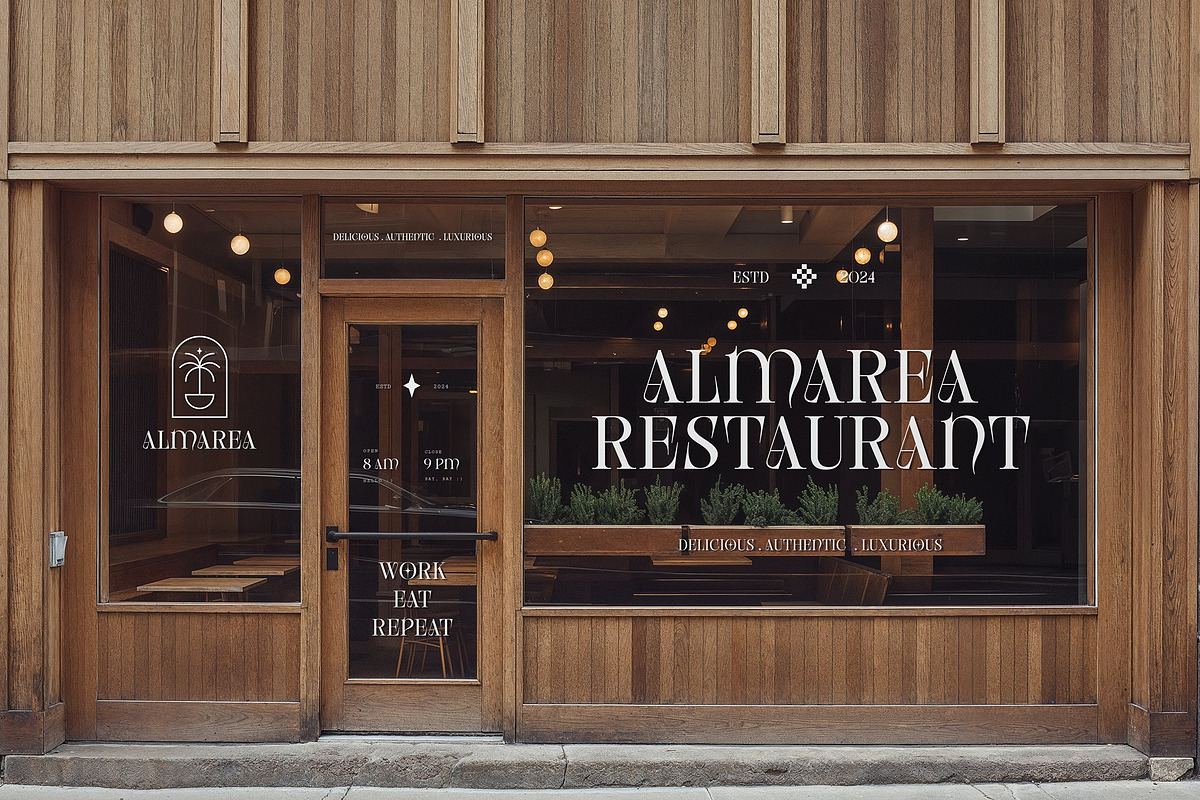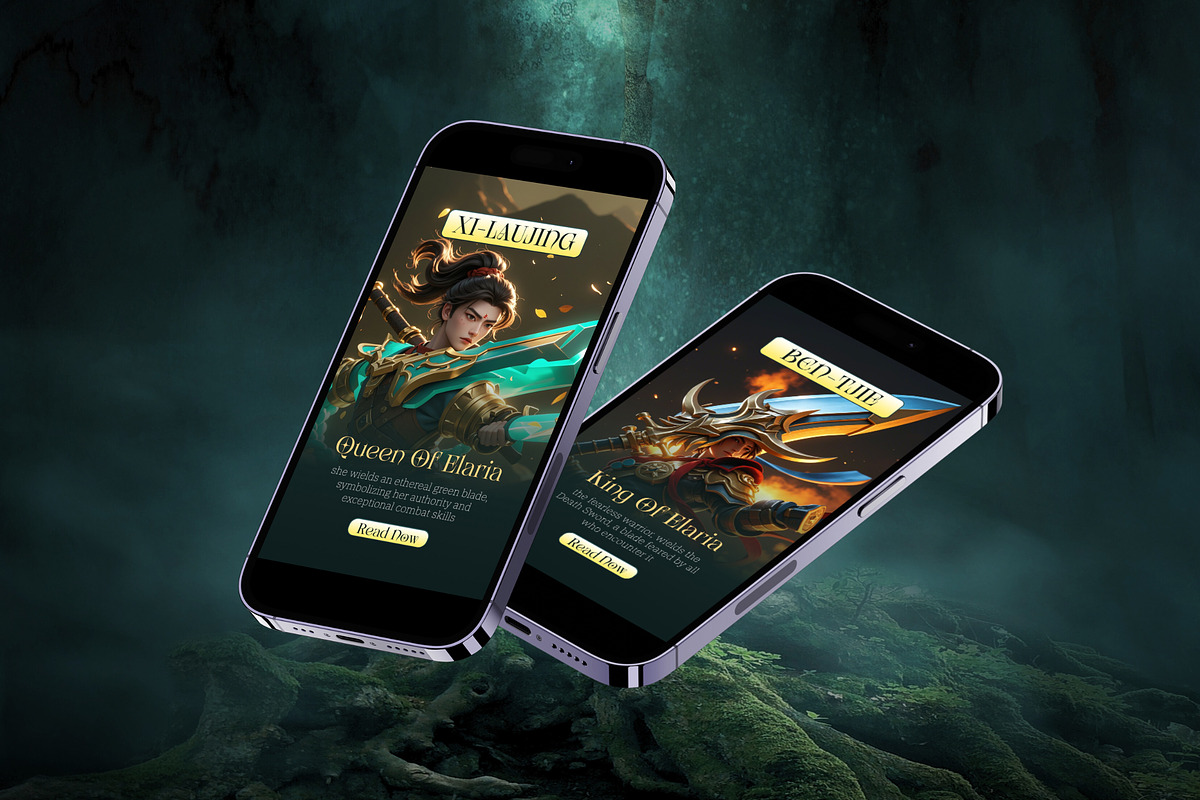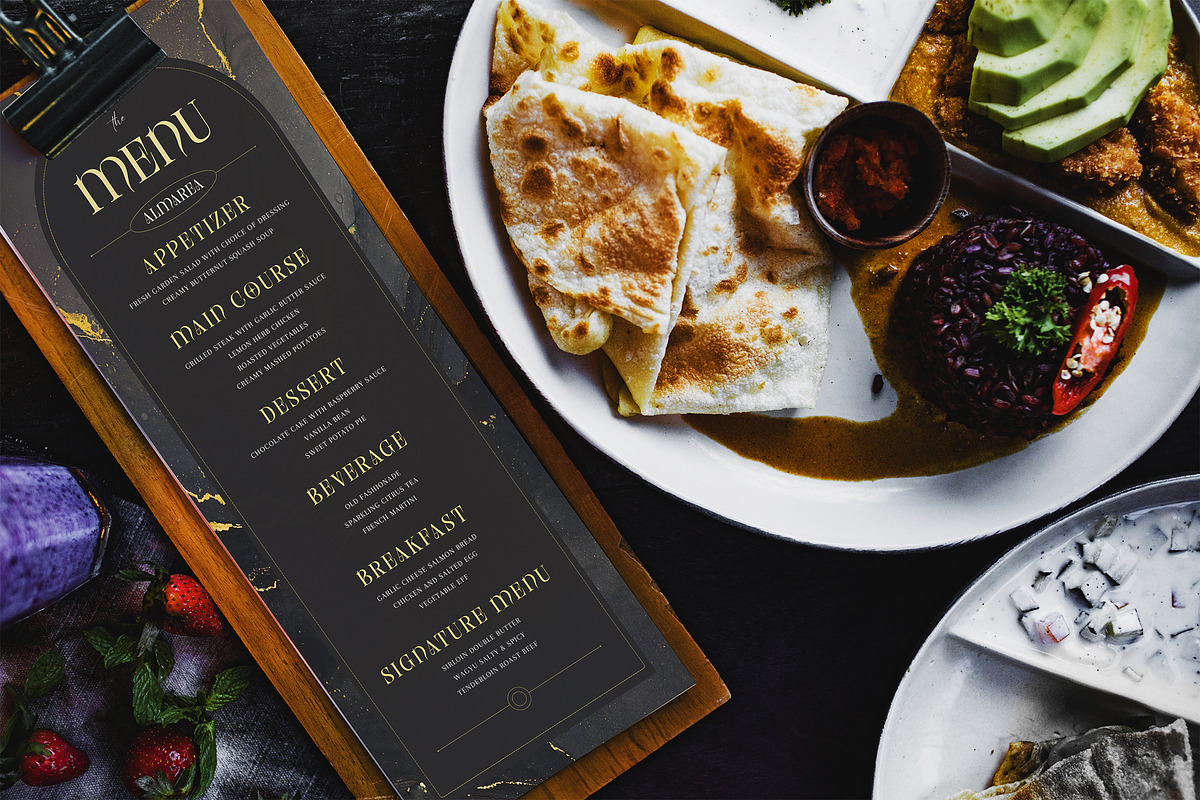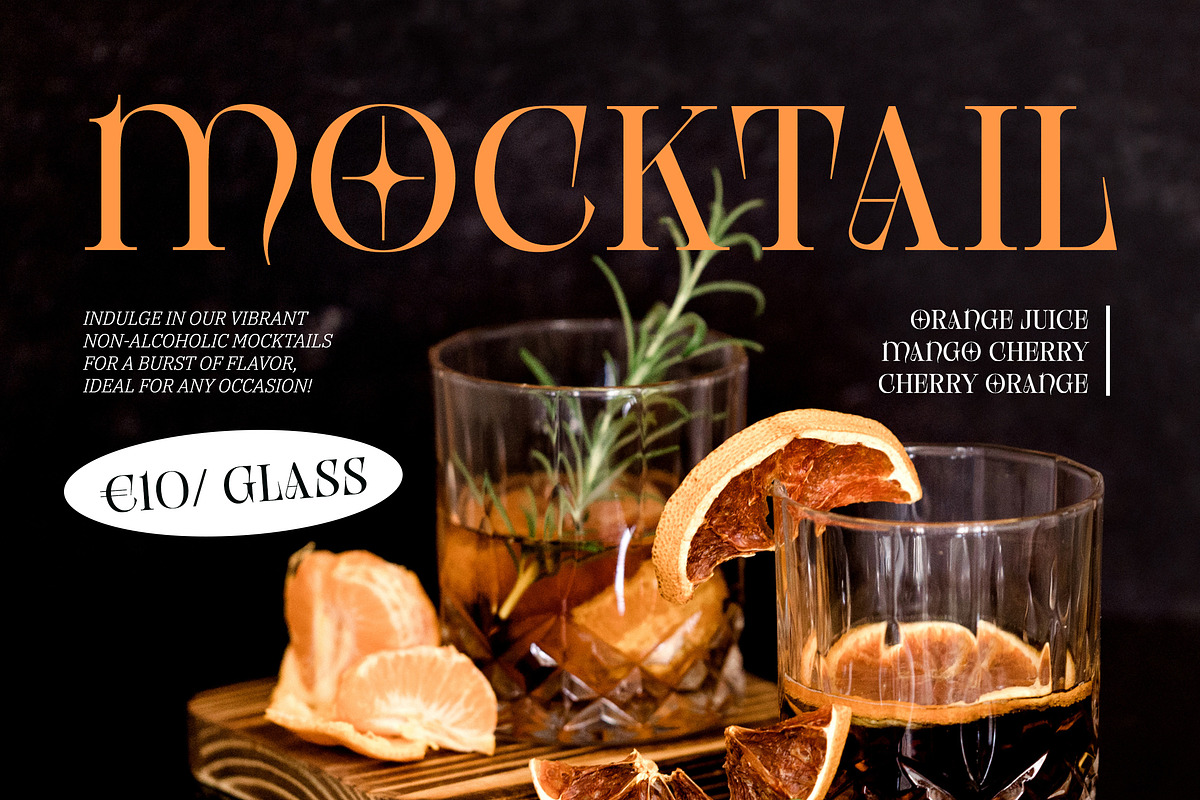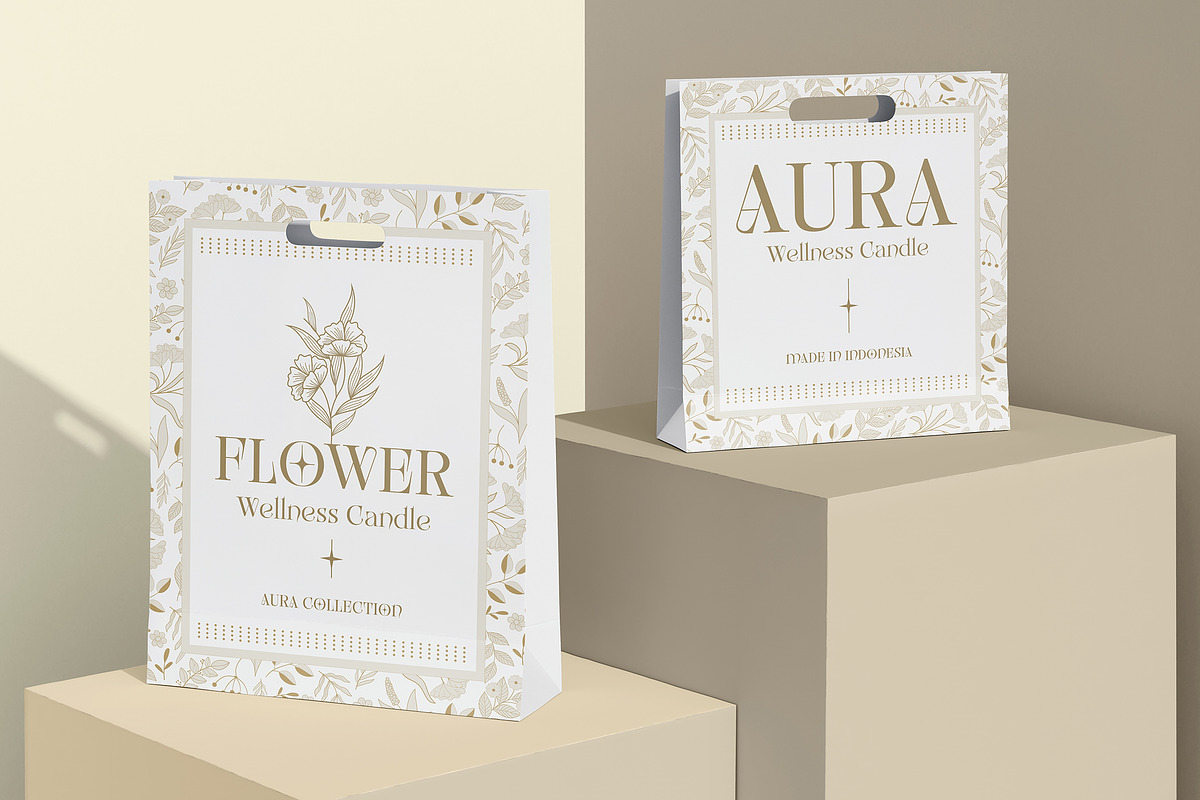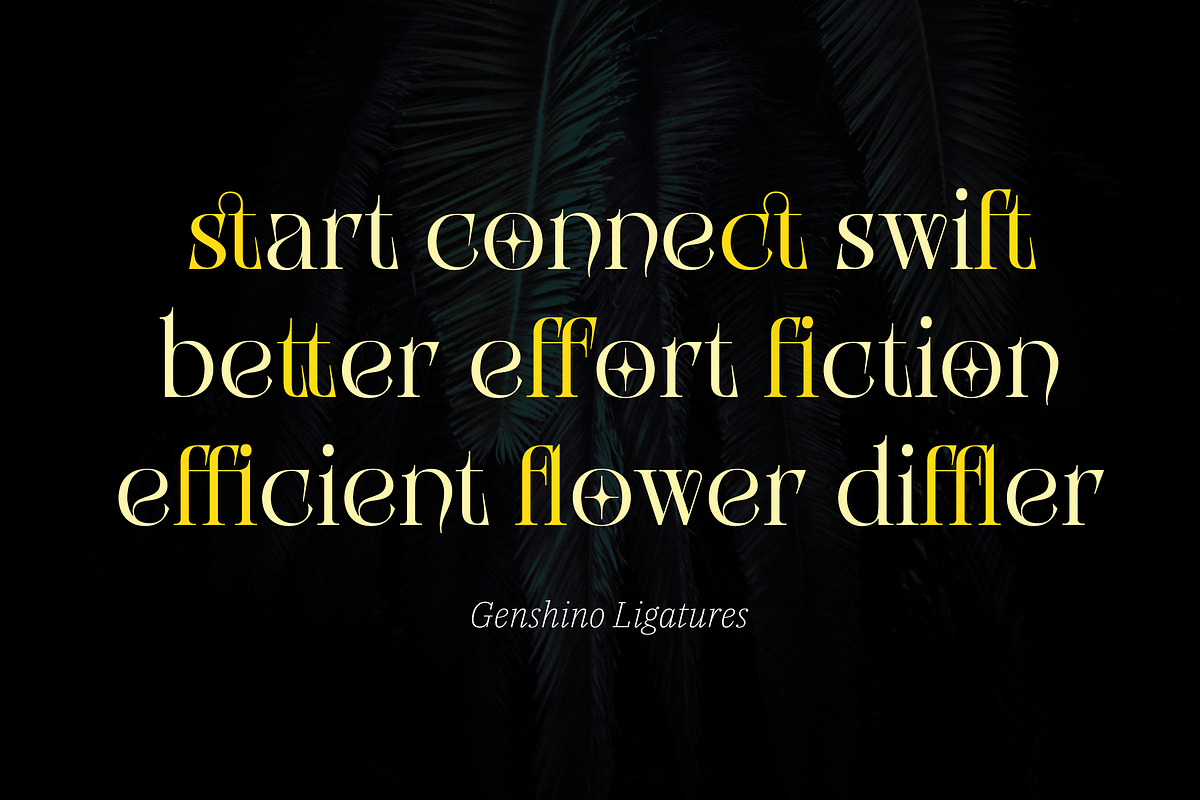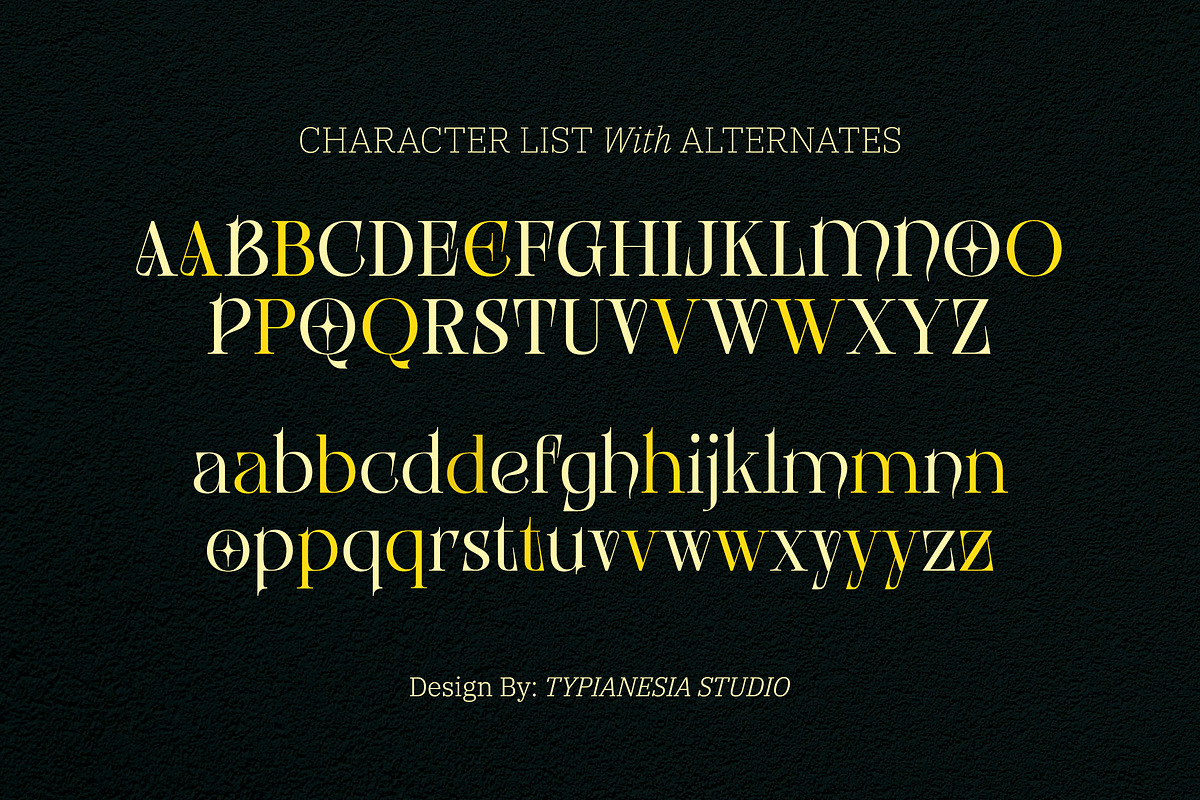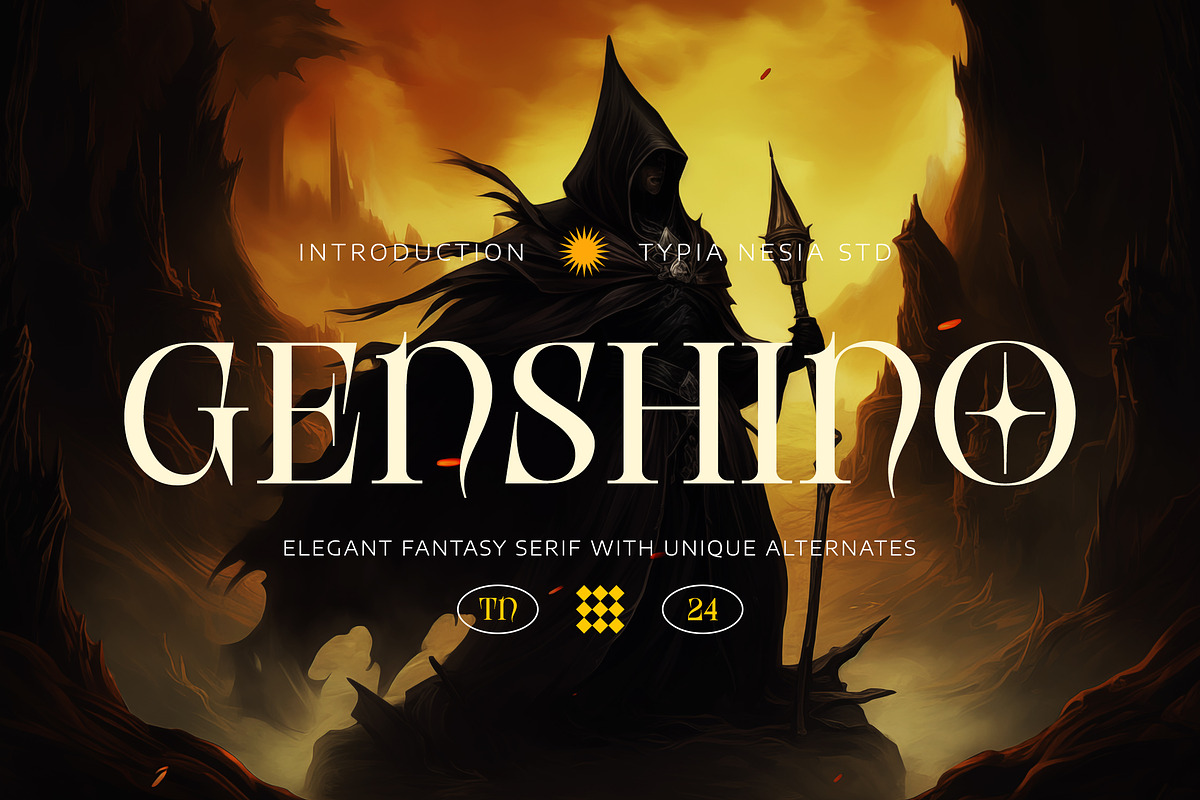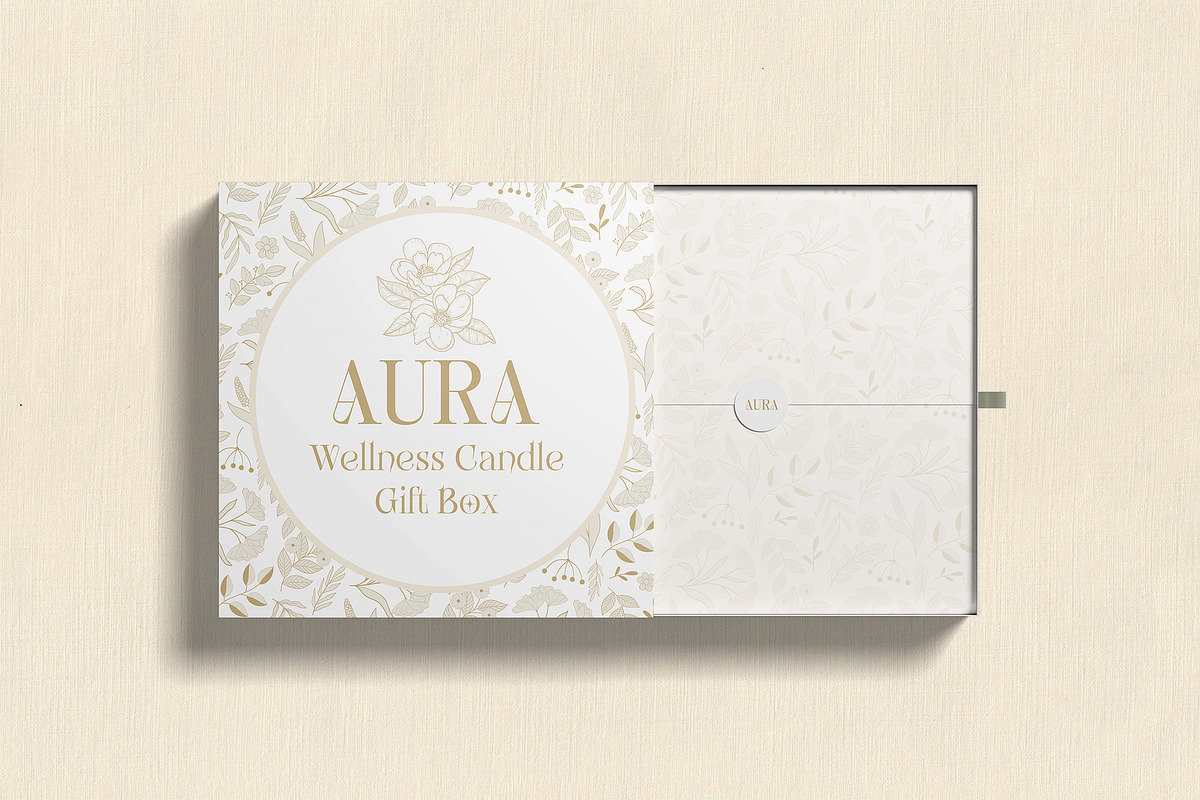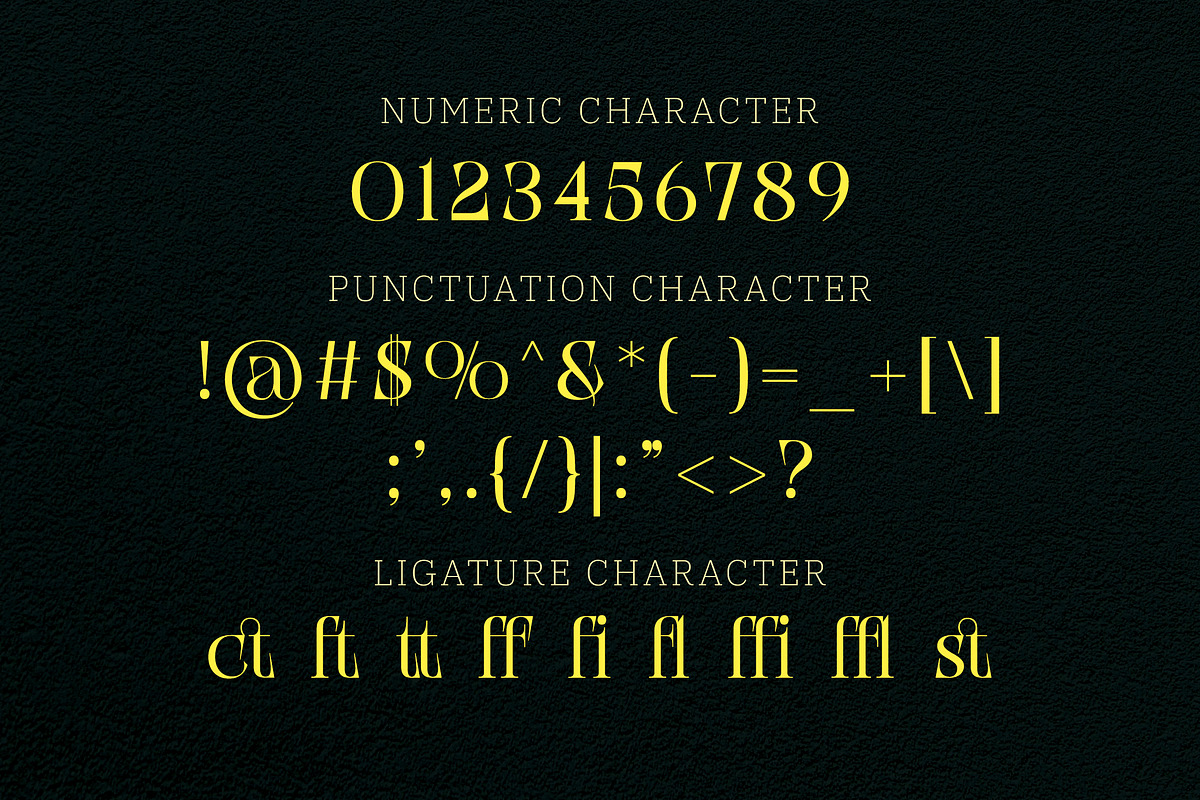
Genshino - Elegant Fantasy Serif
Genshino - Elegant Luxury Fantasy Serif font - Game Display Font with Unique Alternates
Genshino is an Elegant Fantasy Serif font featuring unique alternates that blend elegance with a touch of whimsy. Its graceful and imaginative design elements make it perfect for projects that require a combination of elegance and fantasy, such as branding with fantasy themes, book covers, fantasy-themed projects, wedding invitations, and editorial design, fantasy gaming, packaging, logo design, menu design and any more projects that require a touch of elegance, fancy and fantasy. The versatile font style ensures it looks stunning in both print and digital formats, adding a magical touch to logos, headlines, and body text. Comes packed with features to elevate your creative work. It includes ligatures for smooth character combinations, a complete set of uppercase and lowercase letters, punctuation, numerals, and a variety of unique alternates. Additionally, it offers extensive multilingual support, making it a versatile choice for global applications. Designed with meticulous attention to detail, Genshino blends elegant aesthetics with fantasy elements, making it a reliable choice for designers looking to create unique and enchanting designs.